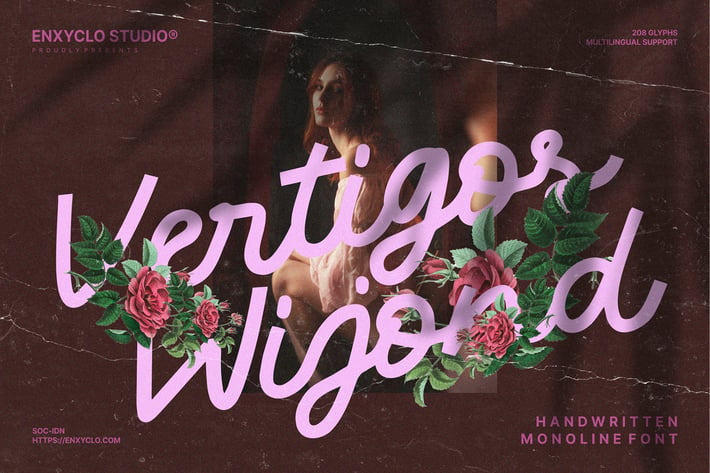
Vertigos Wijond - Handwritten Monoline Script Font
Vertigos Wijond is a handwritten monoline script display font. Masterfully designed to become a true favorite, this font has the potential to bring each of your creative ideas to the highest level! It was purposely crafted to be used in large point sizes, although it doesn’t lose its magic in small point sizes. It is perfect for headline, billboard, magazines, website, titles, poster, branding, and logos. No matter the topic, this font will be an incredible asset to your fonts’ library, as it has the potential to elevate any creation. With this beautiful font, absolutely you can make your project stand out from the rest.
- Contains 208 Glyphs
- Uppercase & Lowercase
- Numeral, Punctuation & Symbols